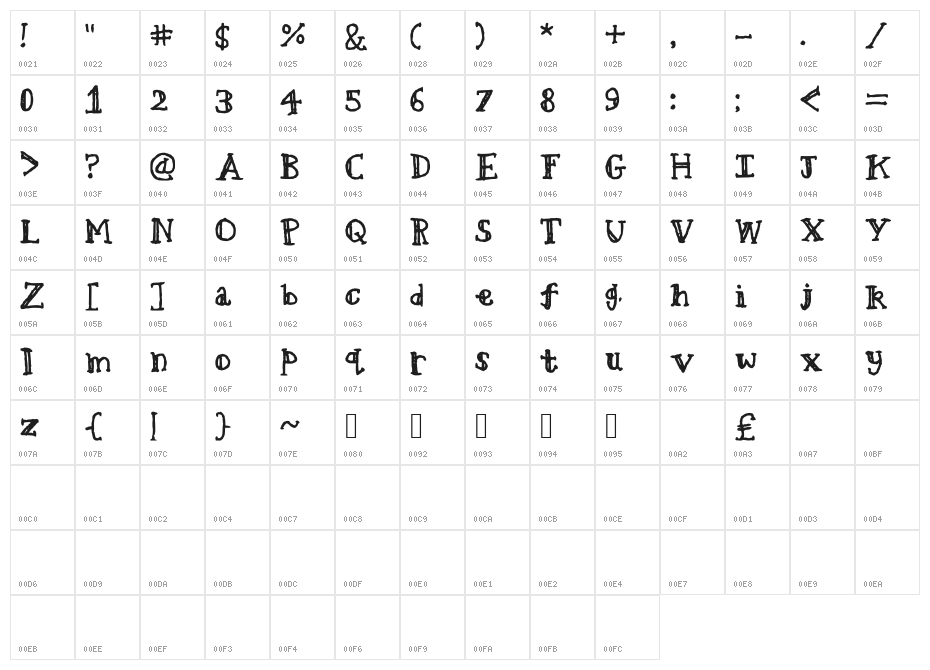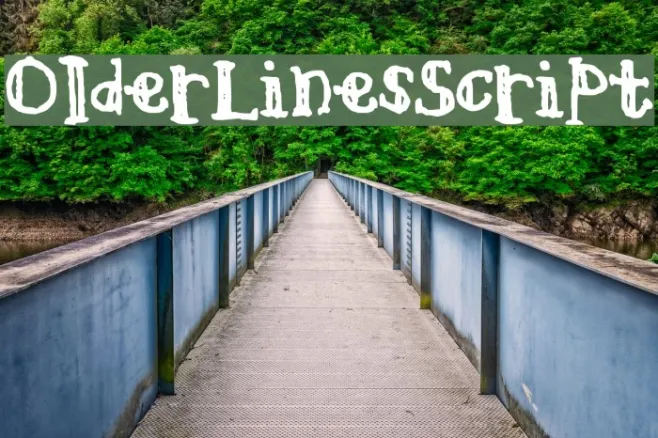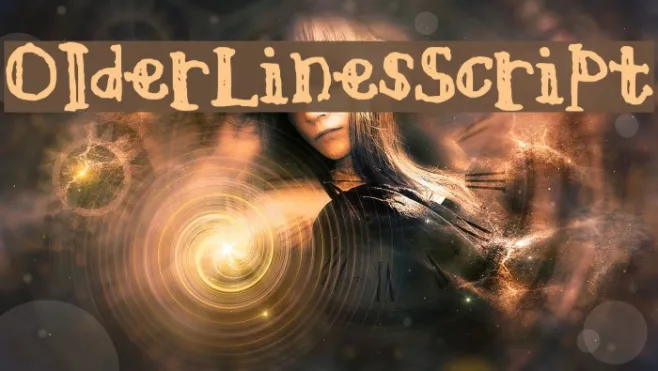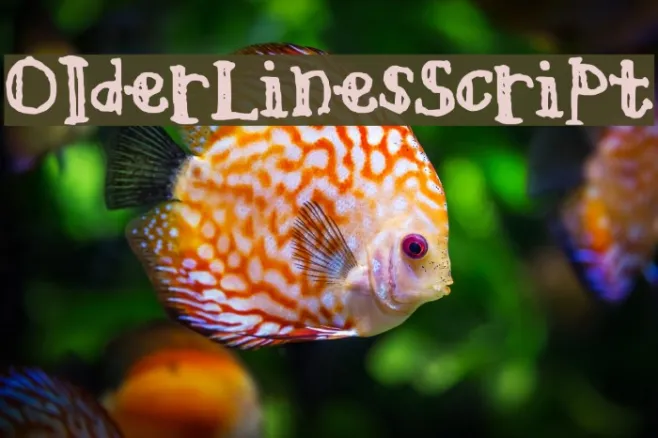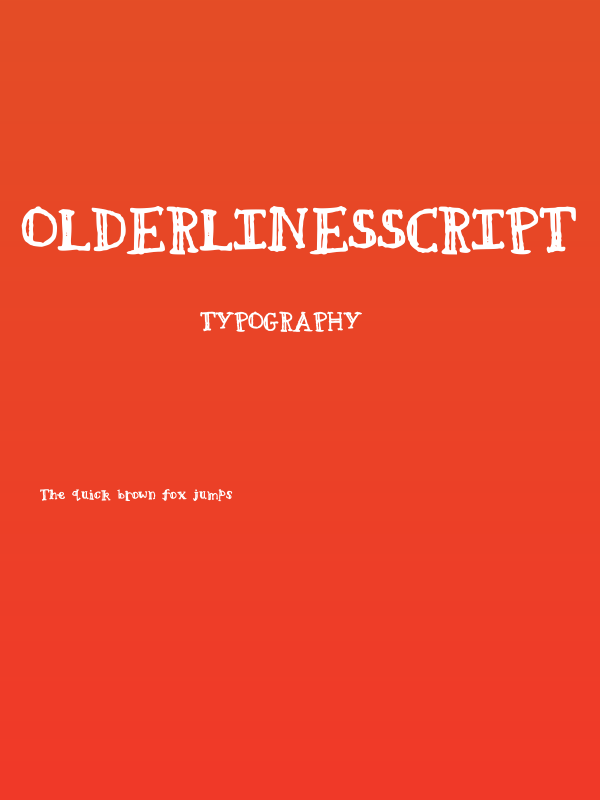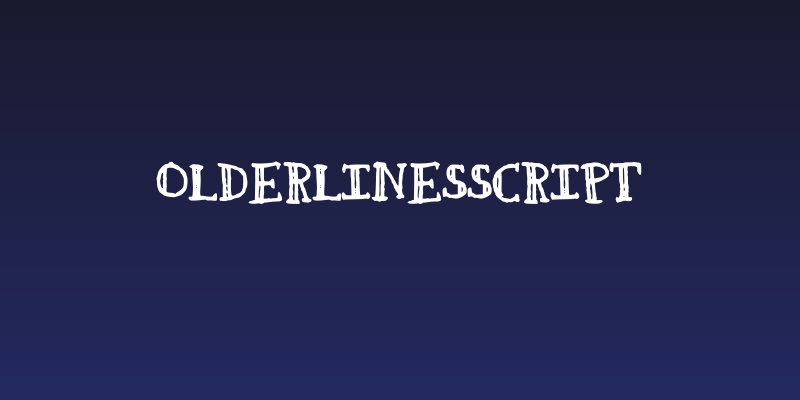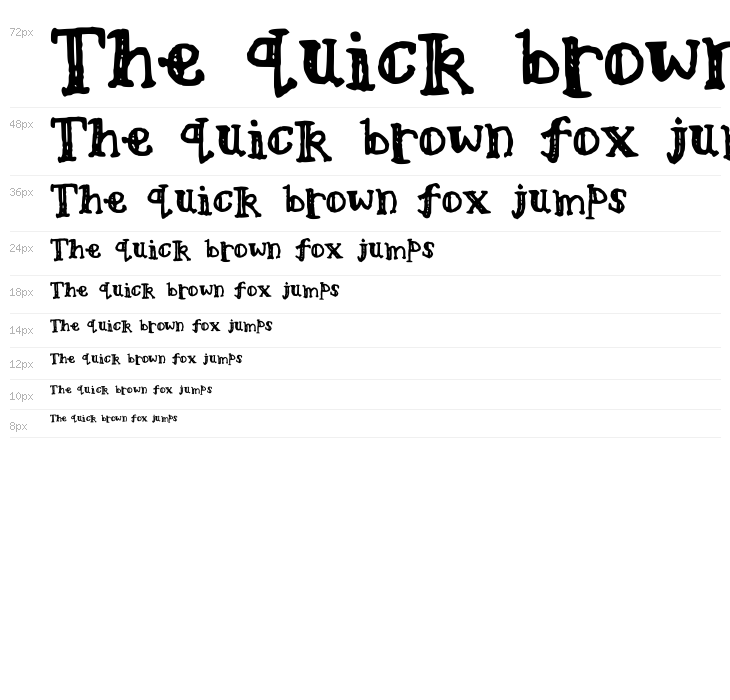
OlderLinesScript Font
OlderLinesScript Description
This font features a distinctive, hand-drawn style with a vintage flair. The characters are bold and slightly irregular, giving them a rustic, organic feel. The uppercase letters are tall and commanding, while the lowercase letters maintain a consistent flow, enhancing readability. Numbers and special characters are crafted with the same attention to detail, ensuring a cohesive look across all text. The font's unique texture and uneven lines evoke a sense of nostalgia, making it ideal for projects that require a touch of authenticity and charm.
| Proposed Projects | Ideal for vintage posters, rustic branding, handmade product packaging, and creative invitations. |